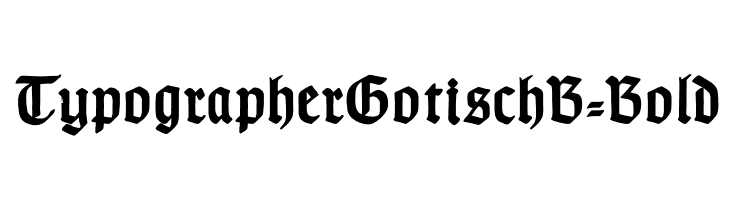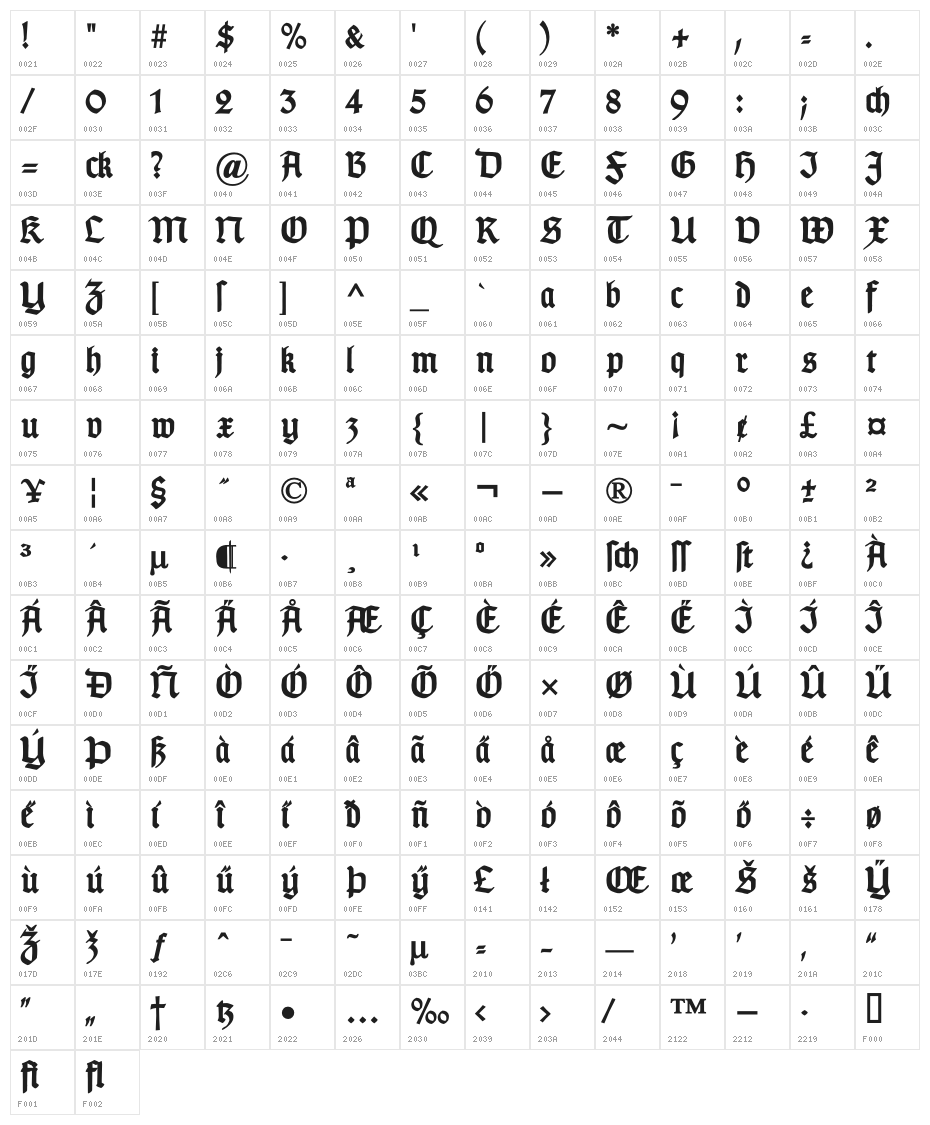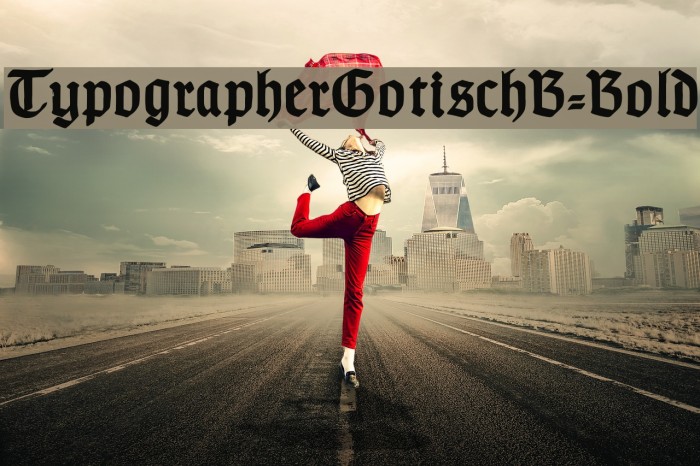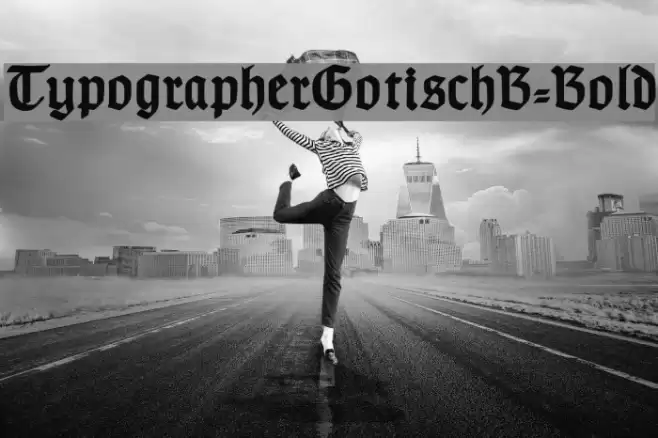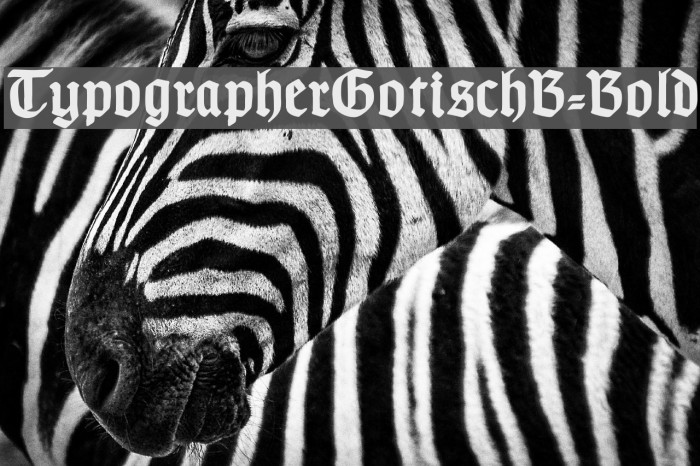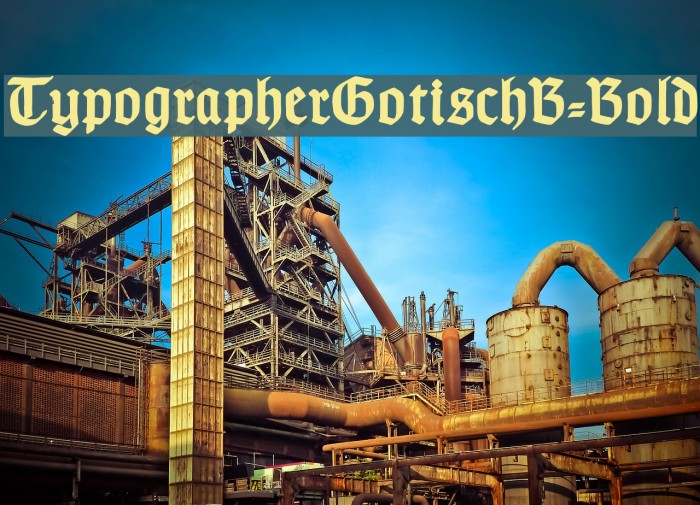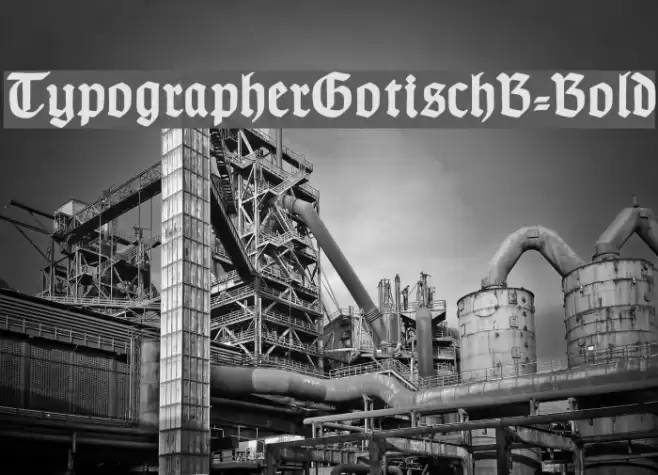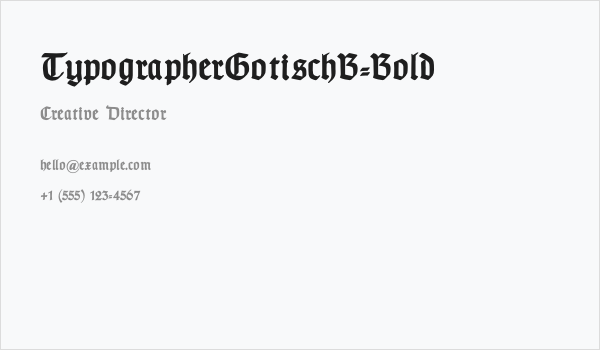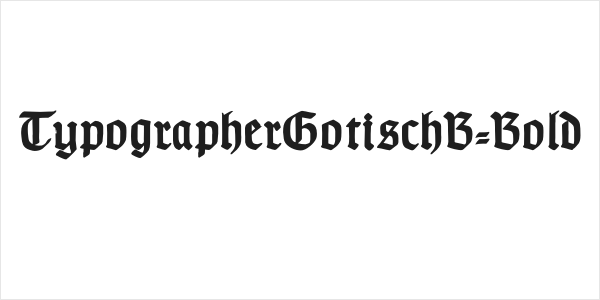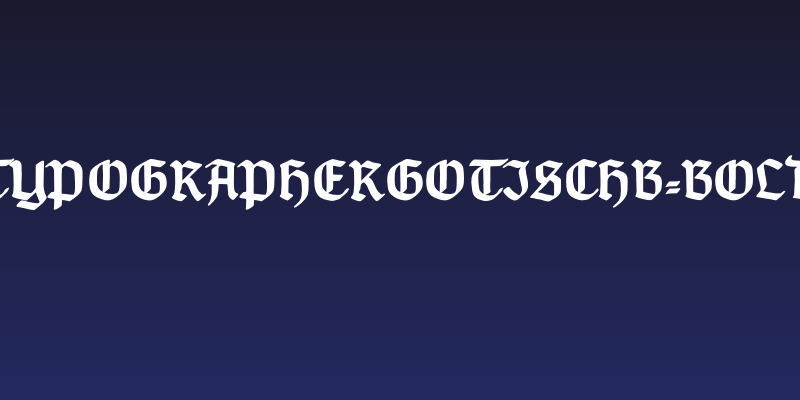
TypographerGotischB-Bold Font
TypographerGotischB-Bold Description
This font embodies the traditional Blackletter style with its intricate and bold strokes, reminiscent of medieval script. The uppercase letters are characterized by sharp, angular lines and dramatic curves, creating a sense of formality and historical depth. The lowercase letters maintain a consistent style, with a slightly more rounded appearance that complements the uppercase set. The numerals are distinct, featuring unique flourishes that enhance their visual appeal. Special characters are crafted with the same attention to detail, ensuring a cohesive look across all glyphs. This font is ideal for projects that require a touch of elegance and historical significance.
| Use Case | Headlines, Logos, Decorative text |
| Proposed Projects | Suitable for certificates, invitations, book covers, and branding that seeks a classic or medieval aesthetic. |